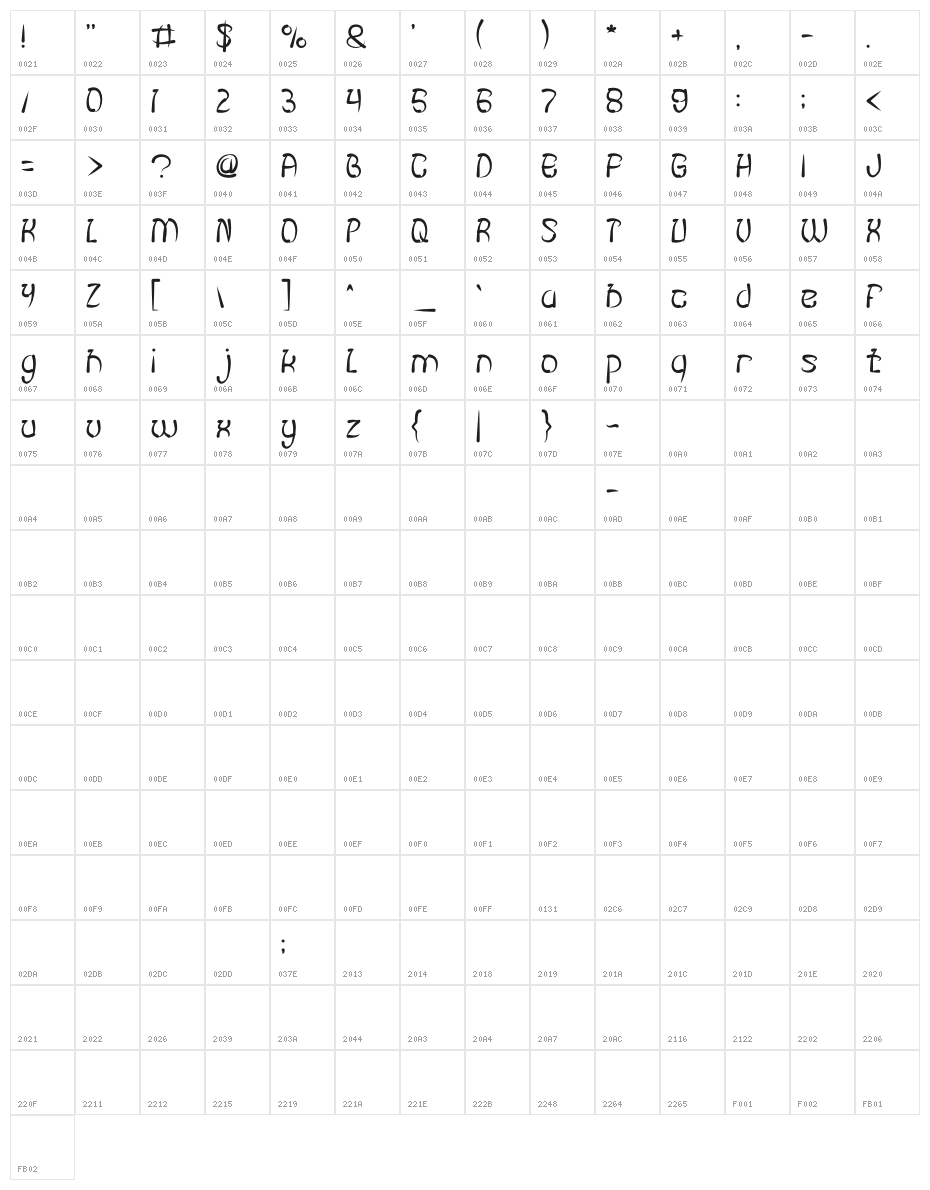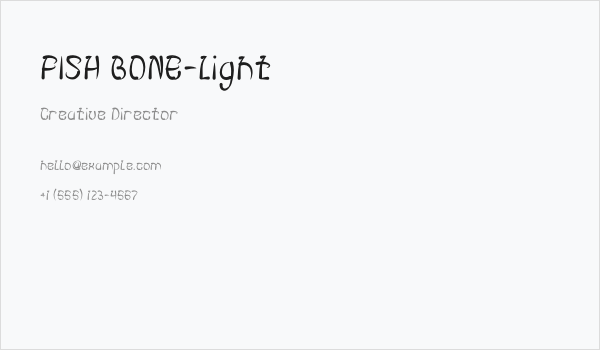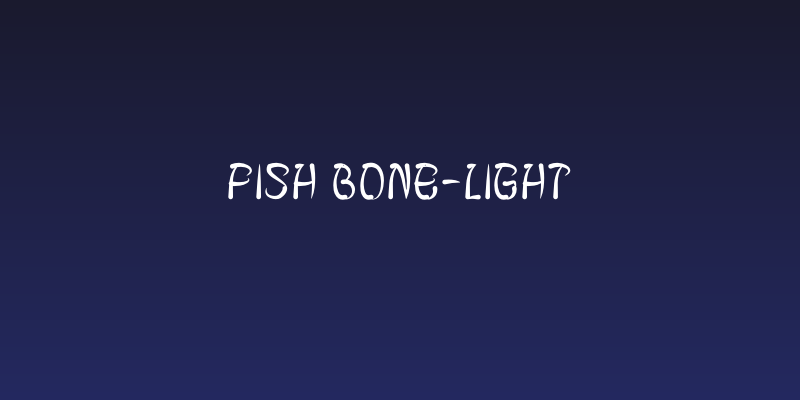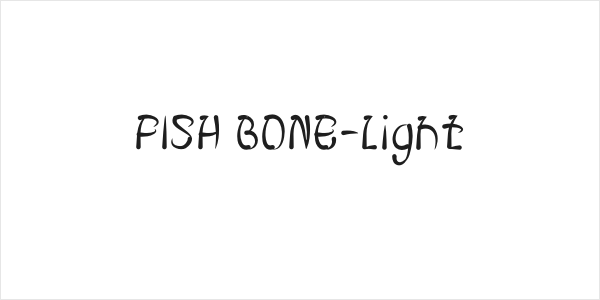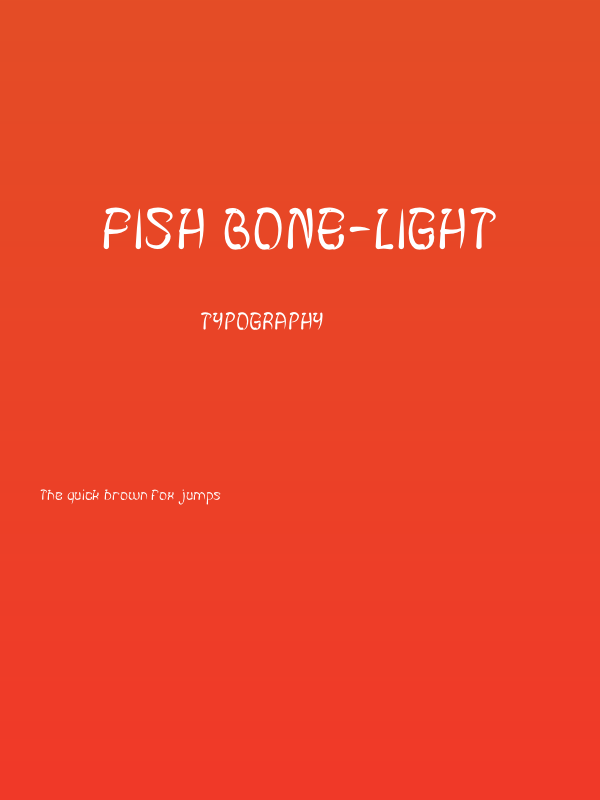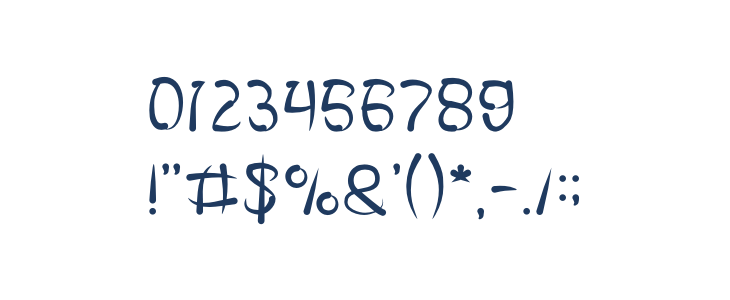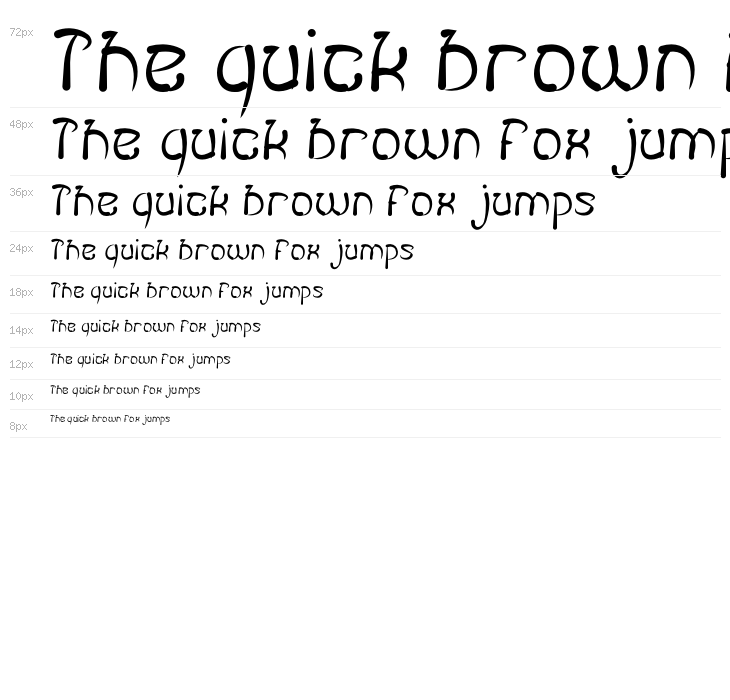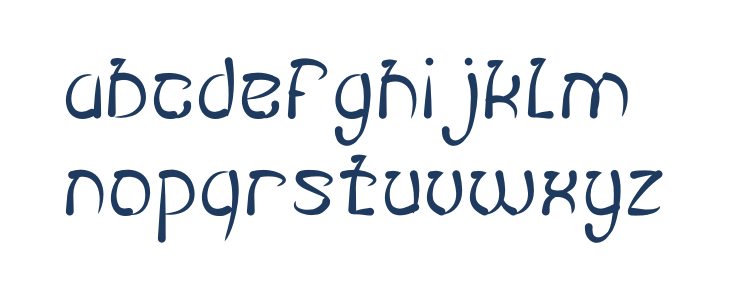
FISH BONE-Light Font
FISH BONE-Light Description
This font features a playful and whimsical design, characterized by its unique, hand-drawn appearance. The letters have a flowing, organic quality with slightly irregular shapes that give it a lively and dynamic feel. The strokes are moderately thick, with some variation in width that adds to its charm. The overall look is informal and friendly, making it suitable for creative and casual projects. The numerals and special characters maintain the same playful style, ensuring consistency across all elements.
| Use Case | Creative projects, informal branding, children's materials. |
| Proposed Projects | Ideal for children's books, greeting cards, playful branding, and creative posters. |